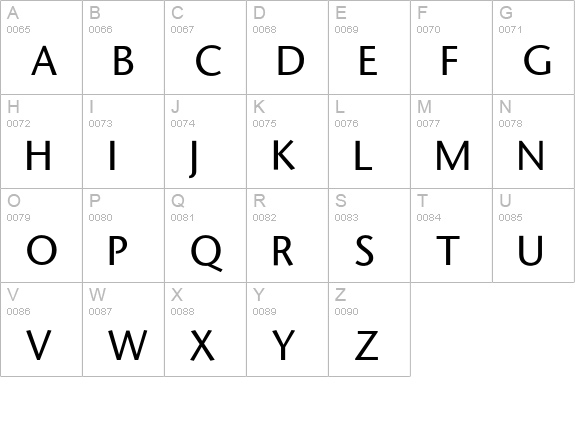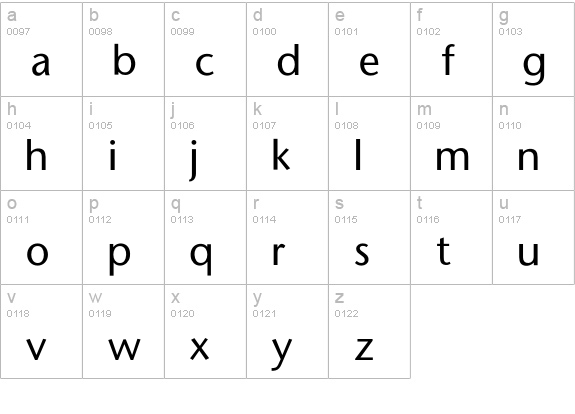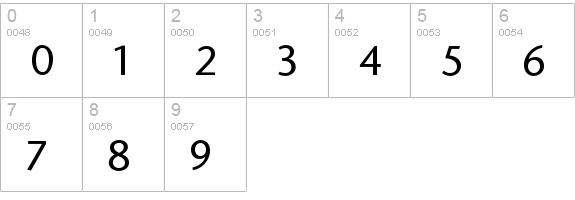
StoneSansMedium Font Details
StoneSansMedium is a versatile and modern font that exudes a sense of sophistication and style. With its clean lines and balanced proportions, this typeface is perfect for a wide range of design projects, from branding to editorial design. The medium weight strikes the perfect balance between being bold and legible, making it ideal for both display and body text. What sets StoneSansMedium apart is that it is not only visually appealing, but also free to download. You can easily access this high-quality font at FontsMarket.com, where you can instantly enhance your designs with a touch of elegance and professionalism. Whether you're working on a website, brochure, poster, or any other creative project, StoneSansMedium is sure to elevate your design to the next level.